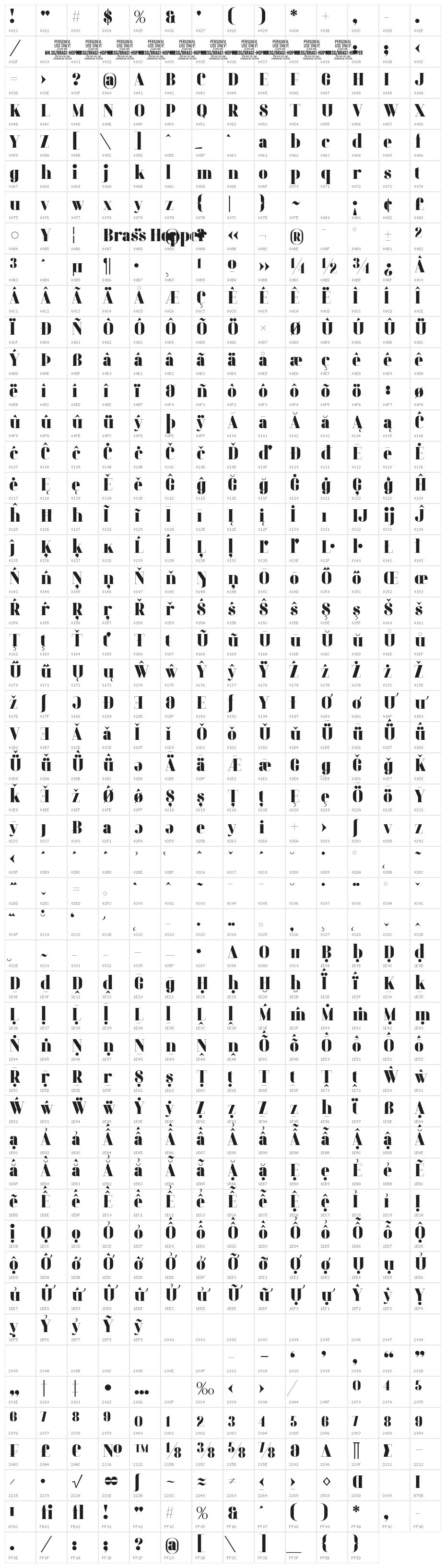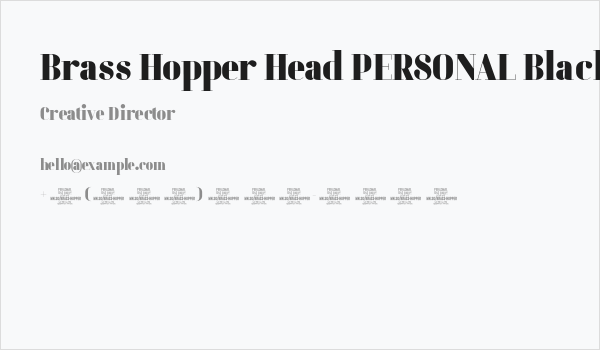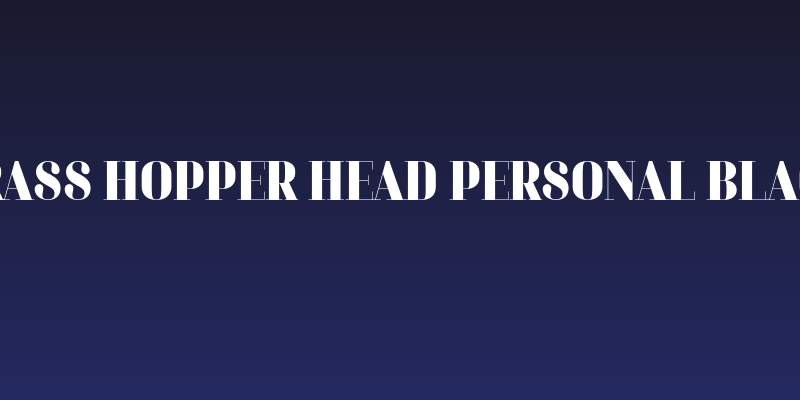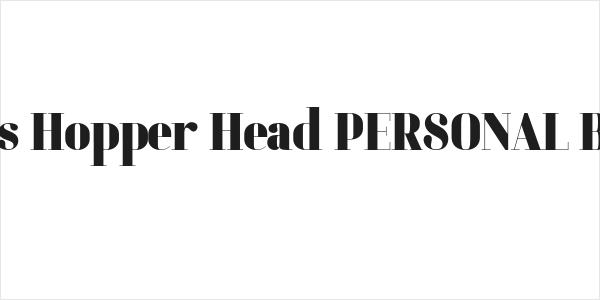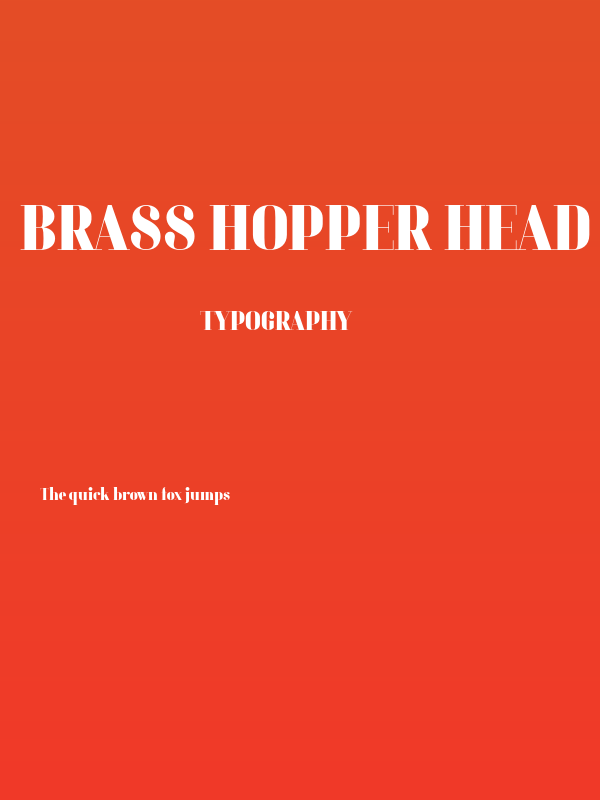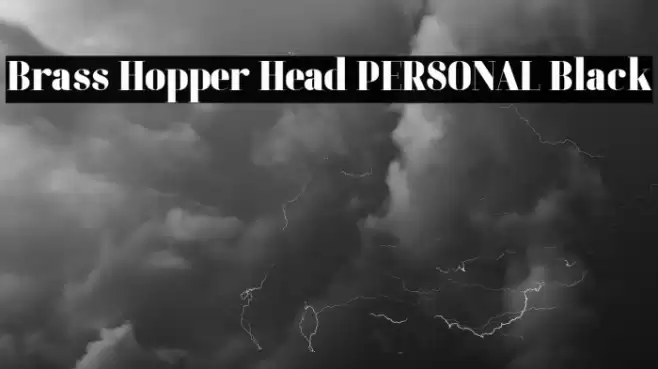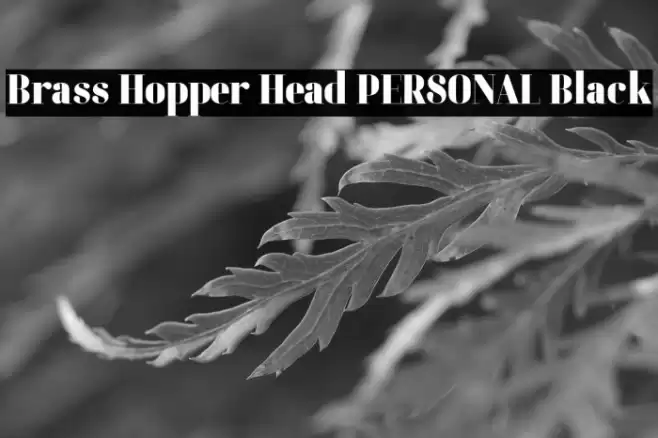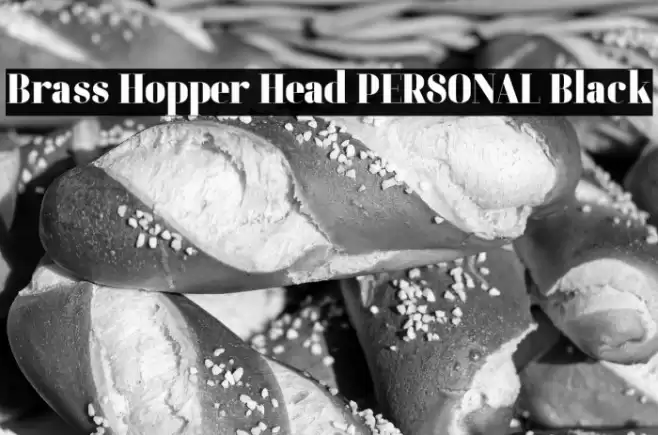
Brass Hopper Head PERSONAL Black Font
Brass Hopper Head PERSONAL Black Description
This font features a bold and striking design with high contrast between thick and thin strokes, giving it a dramatic and eye-catching appearance. The uppercase letters are tall and imposing, while the lowercase letters maintain a consistent style with slightly rounded edges. The numerals and special characters are designed to match the boldness of the alphabet, making them stand out. The overall style is modern and decorative, suitable for making a strong visual impact.
| Overall Style | Modern, Decorative |
| Proposed Projects | Ideal for headlines, posters, branding, and any project requiring a strong visual statement. |